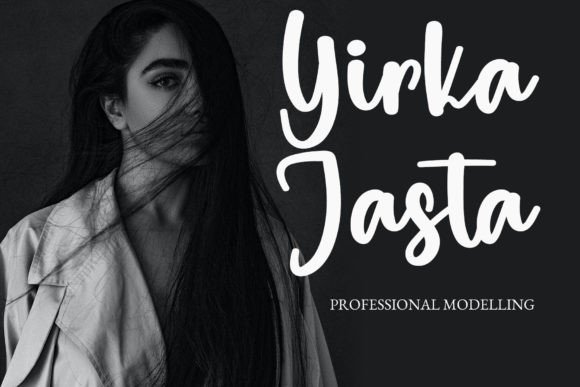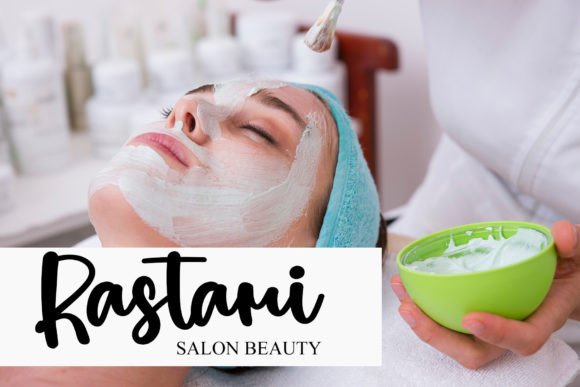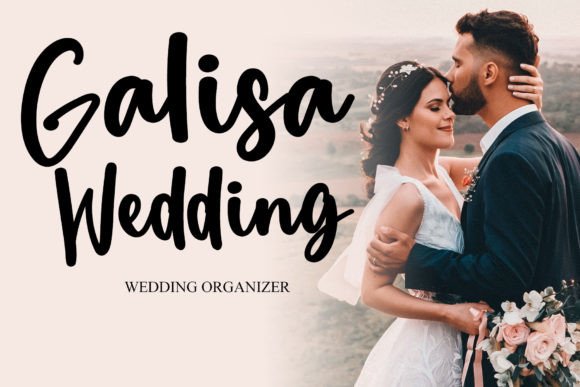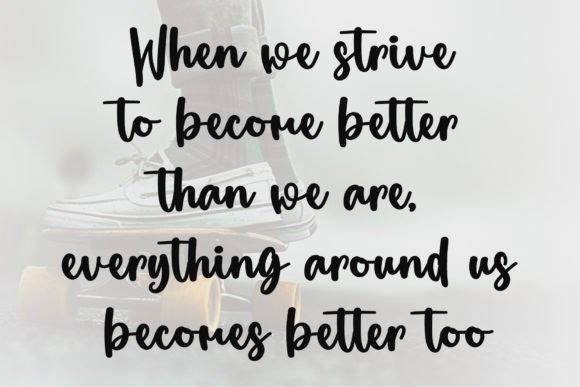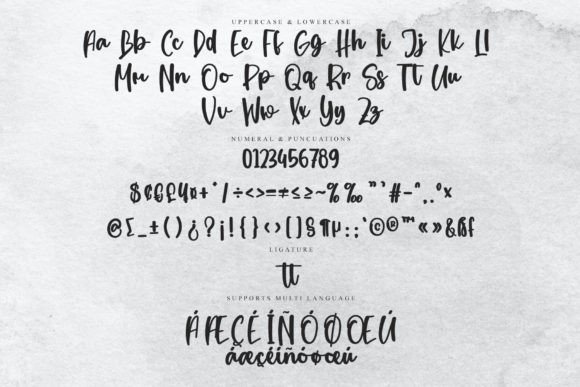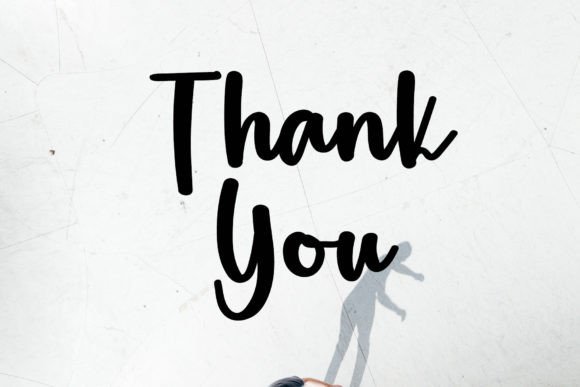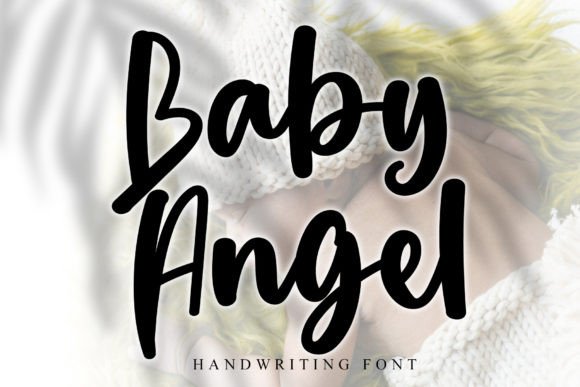
Baby Angel Font: Add a Touch of Happiness to Your Creations
Are you looking for a font that can bring a smile to people’s faces? Look no further than the Baby Angel Font! This stylish and modern handwritten font is perfect for a wide range of applications, from greeting cards to headlines, branding, and packaging. With its playful and cheerful vibe, Baby Angel Font is sure to add a happiness touch to each of your creations.
What Makes Baby Angel Font Special?
Baby Angel Font is a unique and versatile font that can be used for various design projects. Its modern handwritten style gives it a fresh and youthful look, making it perfect for designs that require a touch of playfulness and whimsy. The font is highly legible and can be used for both headings and body text, making it a great addition to any designer’s toolkit.
Applications of Baby Angel Font
The Baby Angel Font is suitable for a wide spectrum of applications, including:
- Greeting Cards: Add a personal touch to your greeting cards with the Baby Angel Font. Its playful style makes it perfect for birthday cards, wedding cards, and other celebrations.
- Headlines: Use the Baby Angel Font to create eye-catching headlines for your blog posts, articles, and social media posts.
- Branding: The Baby Angel Font can be used to create a unique and memorable brand identity for your business. Its modern style makes it perfect for startups and businesses that want to appear youthful and vibrant.
- Packaging: Add a touch of personality to your product packaging with the Baby Angel Font. Its playful style makes it perfect for product labels, packaging inserts, and other marketing materials.
PUA Encoding: Easy Access to Glyphs and Ligatures
The Baby Angel Font is PUA (Private Use Area) encoded, which means that you can access all of the amazing glyphs and ligatures with ease. PUA encoding allows designers to access a wide range of special characters and glyphs that are not available in standard fonts. This makes it easy to create unique and creative designs that stand out from the crowd.
Benefits of Using Baby Angel Font
Here are some benefits of using the Baby Angel Font:
- Unique and Creative: The Baby Angel Font is a unique and creative font that can add a touch of personality to your designs.
- Highly Legible: The font is highly legible, making it perfect for both headings and body text.
- Versatile: The Baby Angel Font can be used for a wide range of applications, from greeting cards to headlines, branding, and packaging.
- Easy to Use: The font is PUA encoded, making it easy to access all of the amazing glyphs and ligatures.
Tips for Using Baby Angel Font
Here are some tips for using the Baby Angel Font:
- Pair it with Other Fonts: The Baby Angel Font can be paired with other fonts to create a unique and creative look.
- Use it for Headings: The font is perfect for headings and titles, making it a great addition to any design.
- Experiment with Colors: The Baby Angel Font can be used with a wide range of colors, so don’t be afraid to experiment and find the perfect color scheme for your design.
In conclusion, the Baby Angel Font is a stylish and modern handwritten font that is perfect for a wide range of applications. Its playful and cheerful vibe makes it a great addition to any designer’s toolkit. With its PUA encoding, you can easily access all of the amazing glyphs and ligatures, making it easy to create unique and creative designs. So why not give the Baby Angel Font a try and add a touch of happiness to your creations?